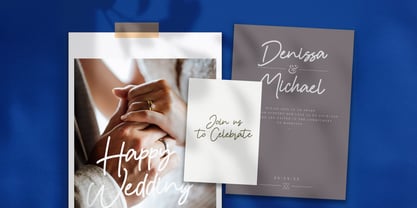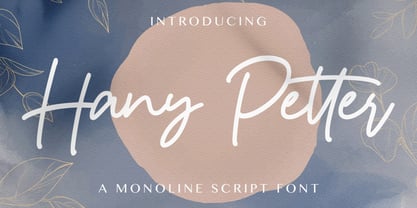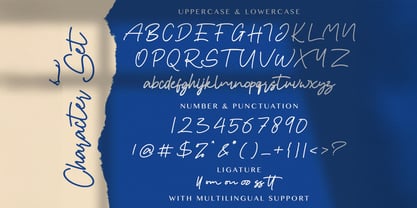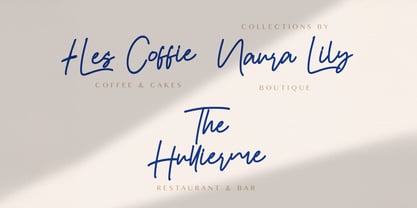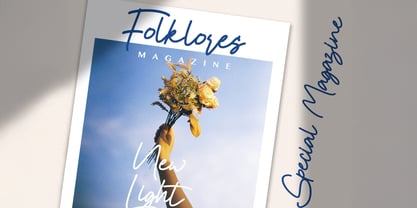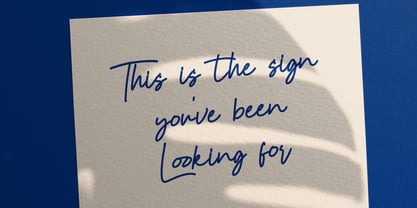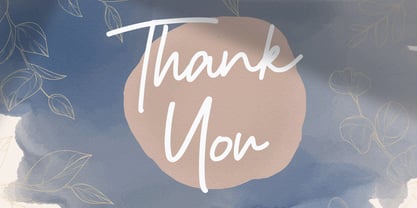
The Hany Petter Font Family was designed by Virgiawan Listanto and published by Stringlabs Creative Studio. Hany Petter contains 1 styles.
Hany Petter is a charming handwritten font that brings a fresh and personal touch to your designs. With smooth curves and a naturally flowing style, this font feels friendly, warm, and effortlessly stylish perfect for projects that need an approachable and elegant look.